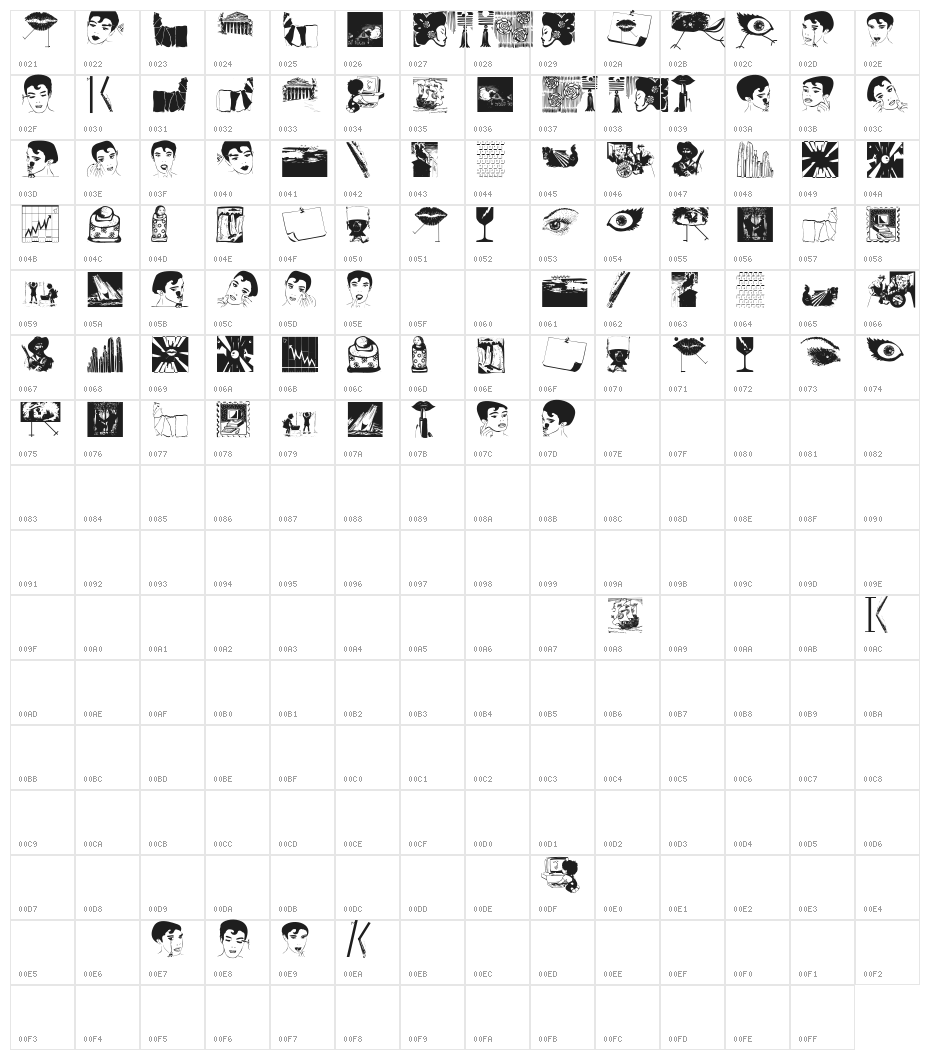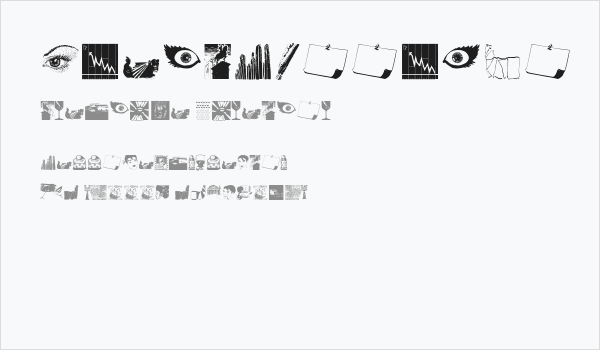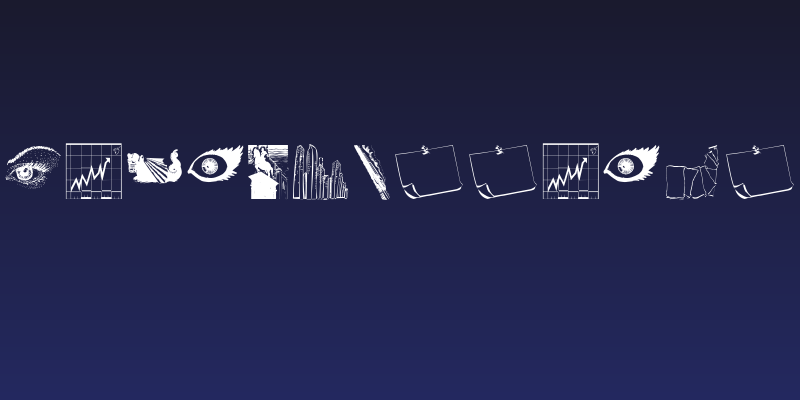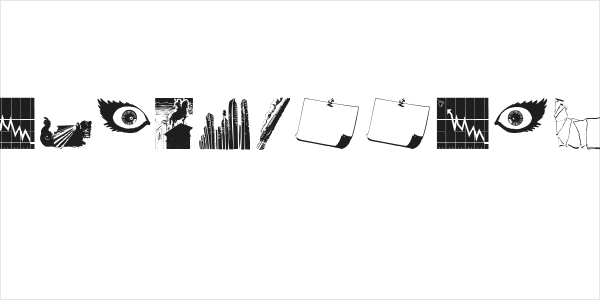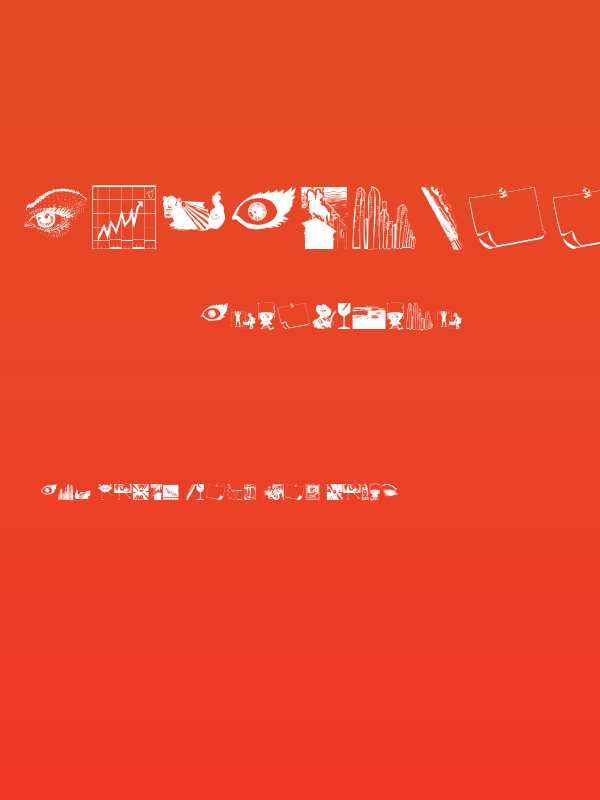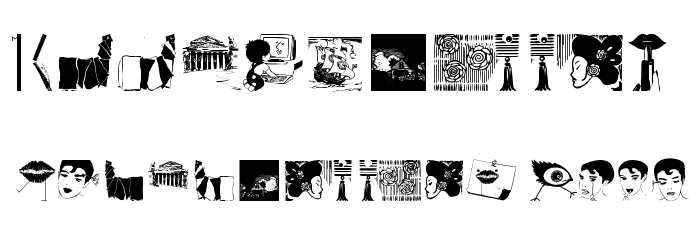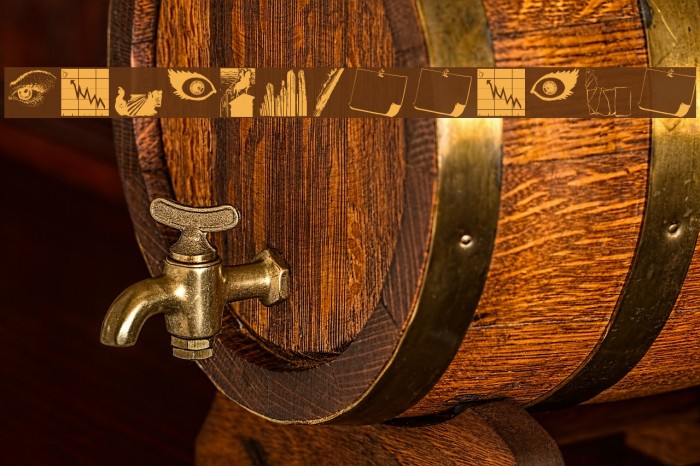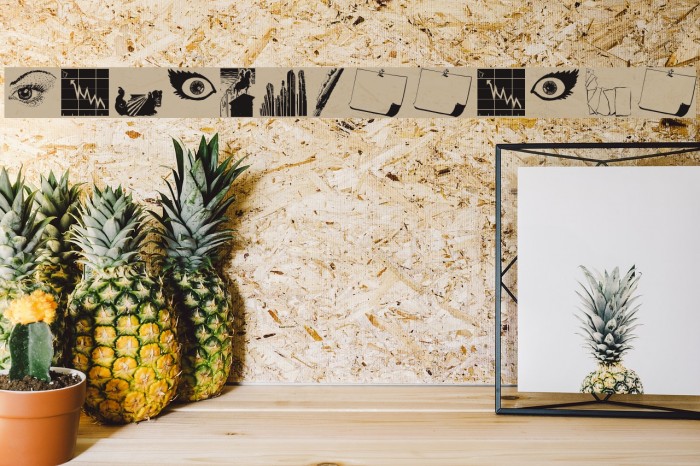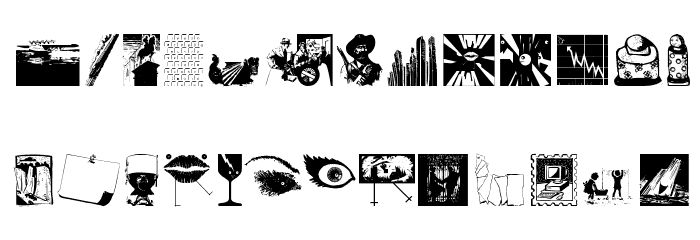
SketchbookTwo Font
SketchbookTwo Description
A highly decorative and illustrative dingbat font composed of various sketch-style drawings, including faces, objects, patterns, and abstract elements. Each character is represented by a unique, detailed black-and-white illustration, giving the set a hand-drawn, artistic feel.
| Overall Style | Decorative, Artistic, Hand-drawn |
| Use Case | Decorative elements, Illustrative accents, Creative layouts |
| Proposed Projects | Art projects, scrapbooking, creative posters, zines, invitations, and decorative headings. |